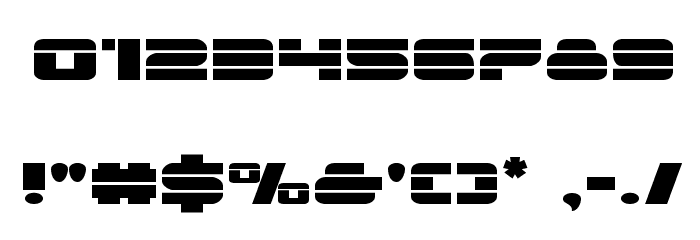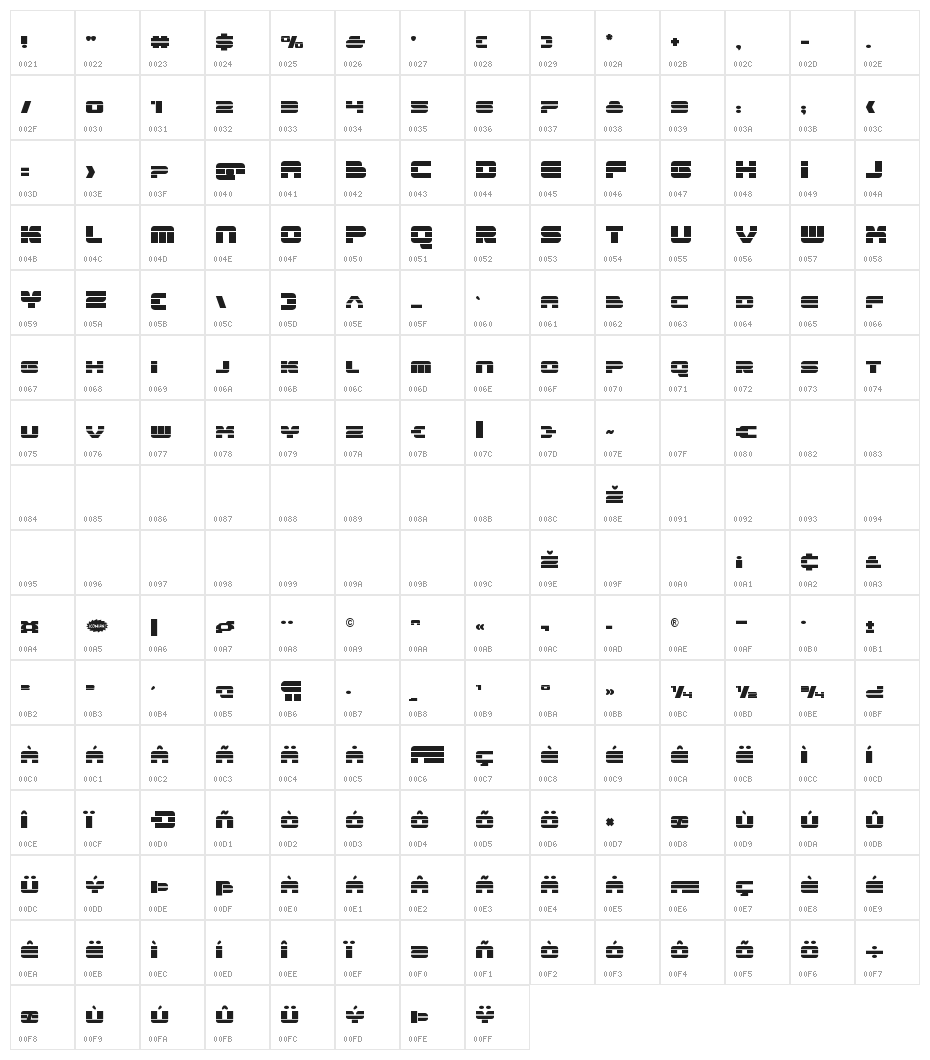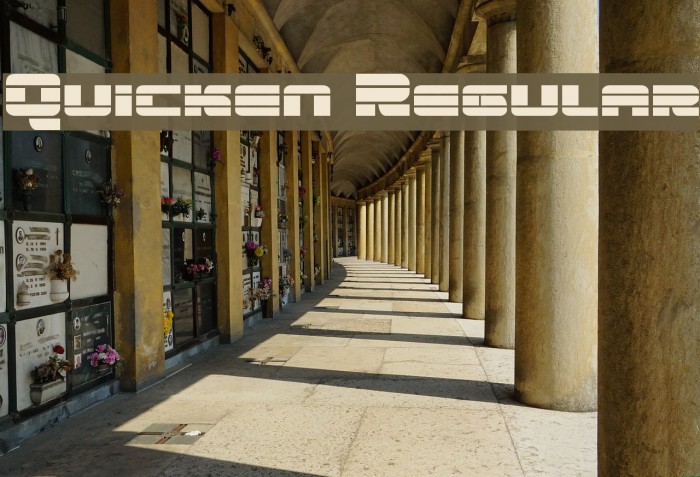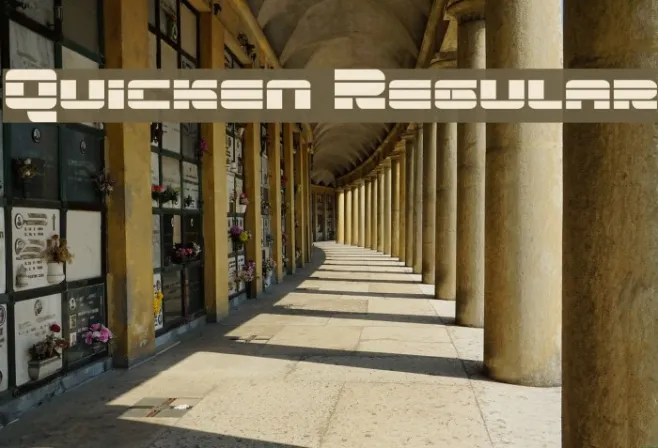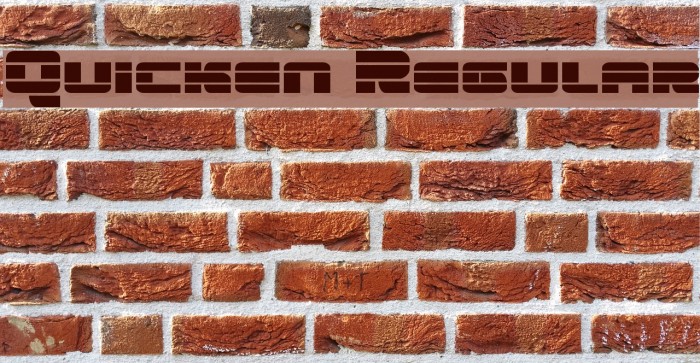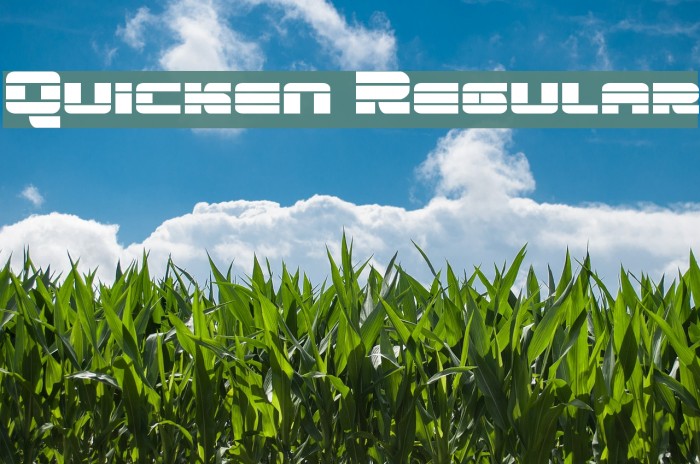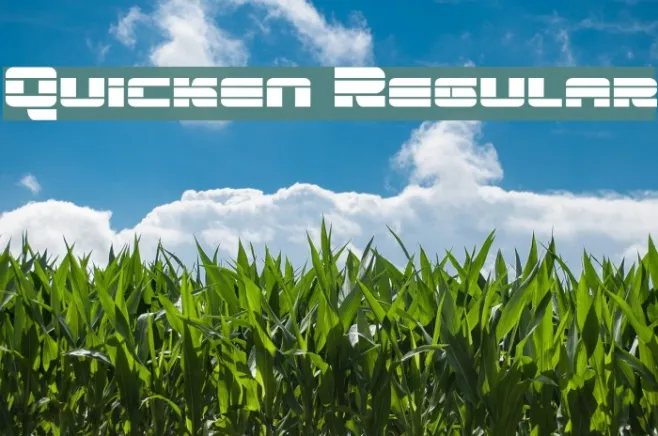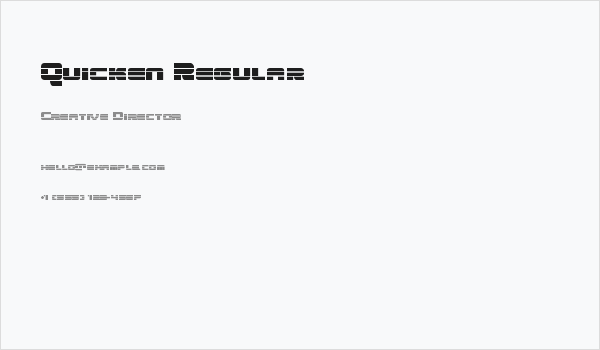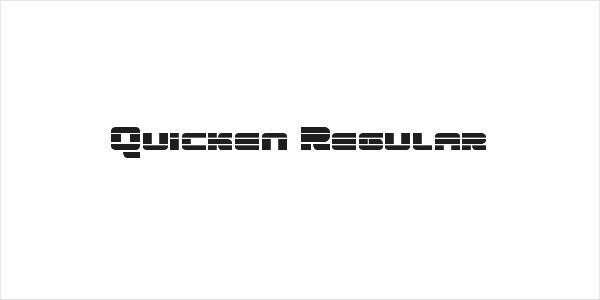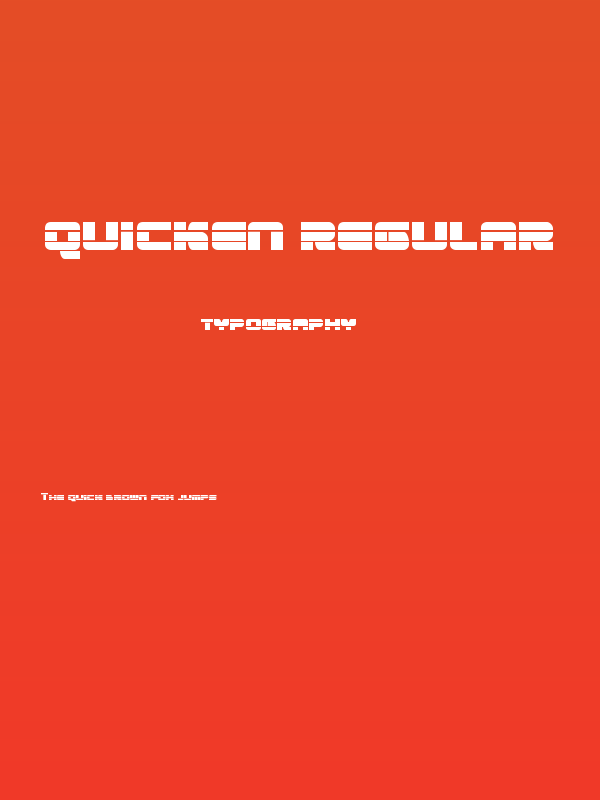
Quicken Regular Font
Quicken Regular Description
This font features a bold, geometric design with a futuristic and digital aesthetic. The characters are constructed with thick, block-like segments that create a strong visual impact. Each letter is composed of horizontal and vertical lines, giving it a segmented appearance. The uniformity in the design provides a cohesive look, while the boldness ensures high visibility. The font's unique style makes it suitable for modern and tech-oriented projects, where a strong and distinctive typeface is desired.
| Proposed Projects | Ideal for technology branding, digital interfaces, video game titles, and futuristic-themed posters. |